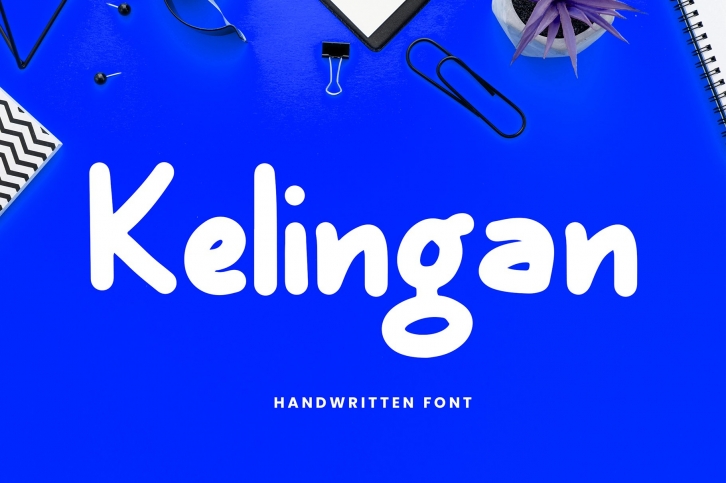
Kelingan is an exciting handwritten font. This is is perfect for branding projects, logo, wedding designs, social media posts, advertisements, product packaging, product designs, label, photography, watermark, invitation, stationery and any projects.